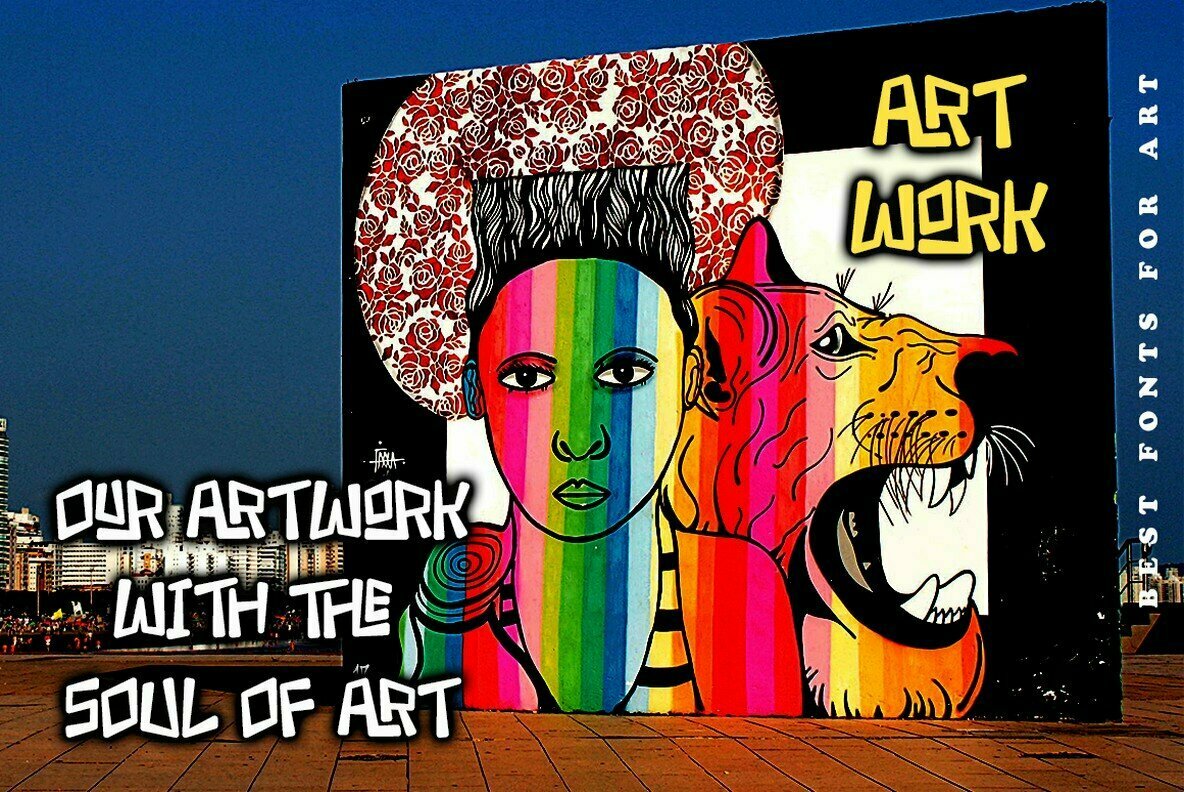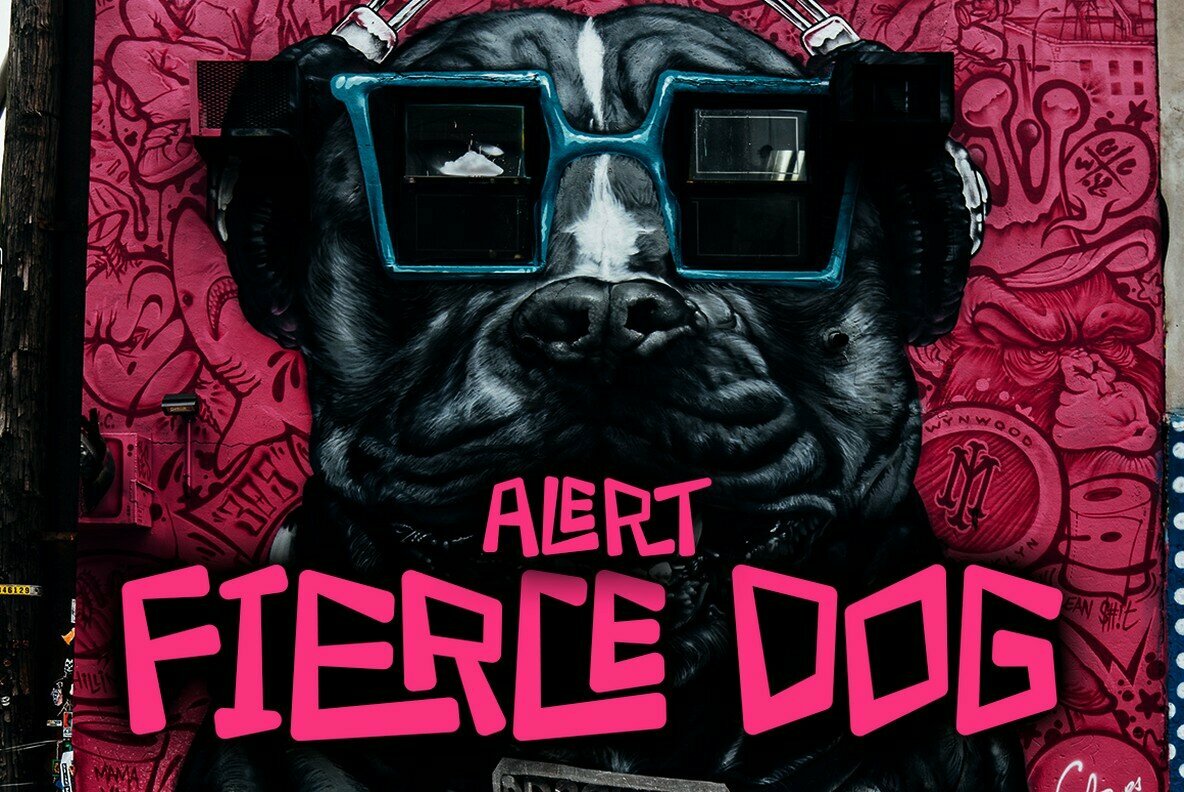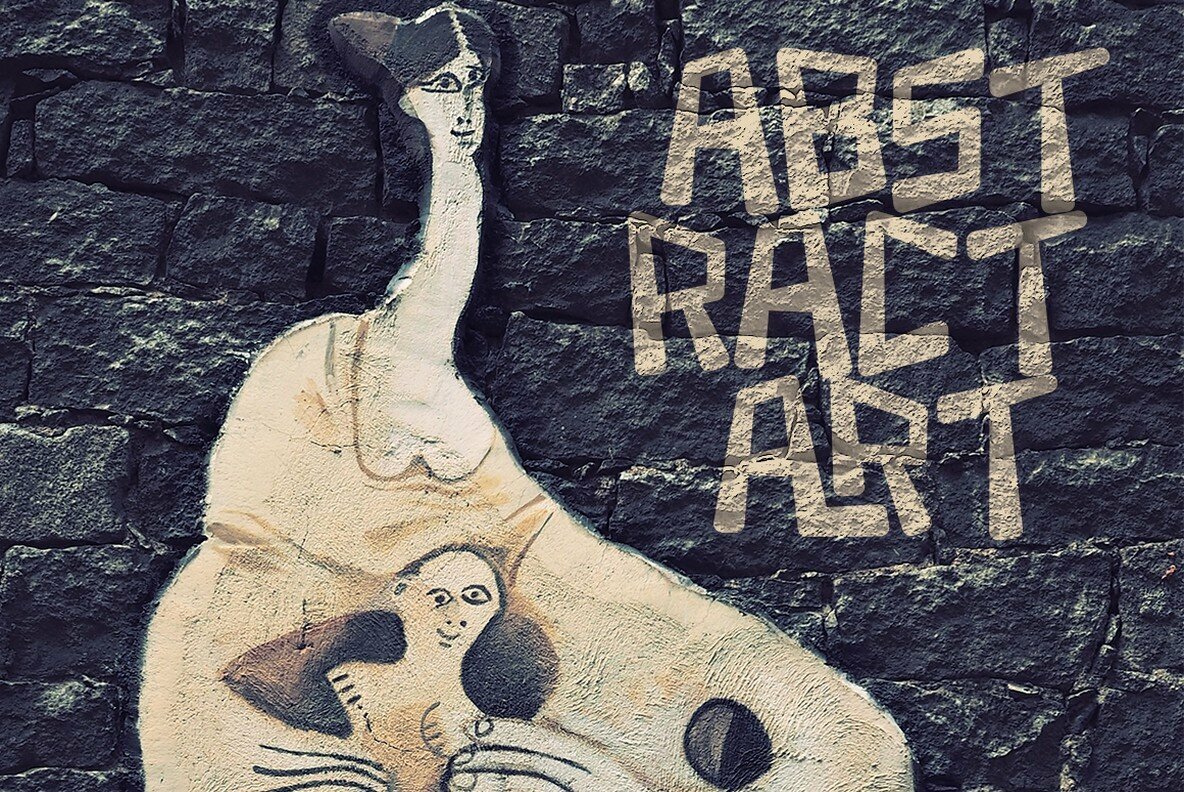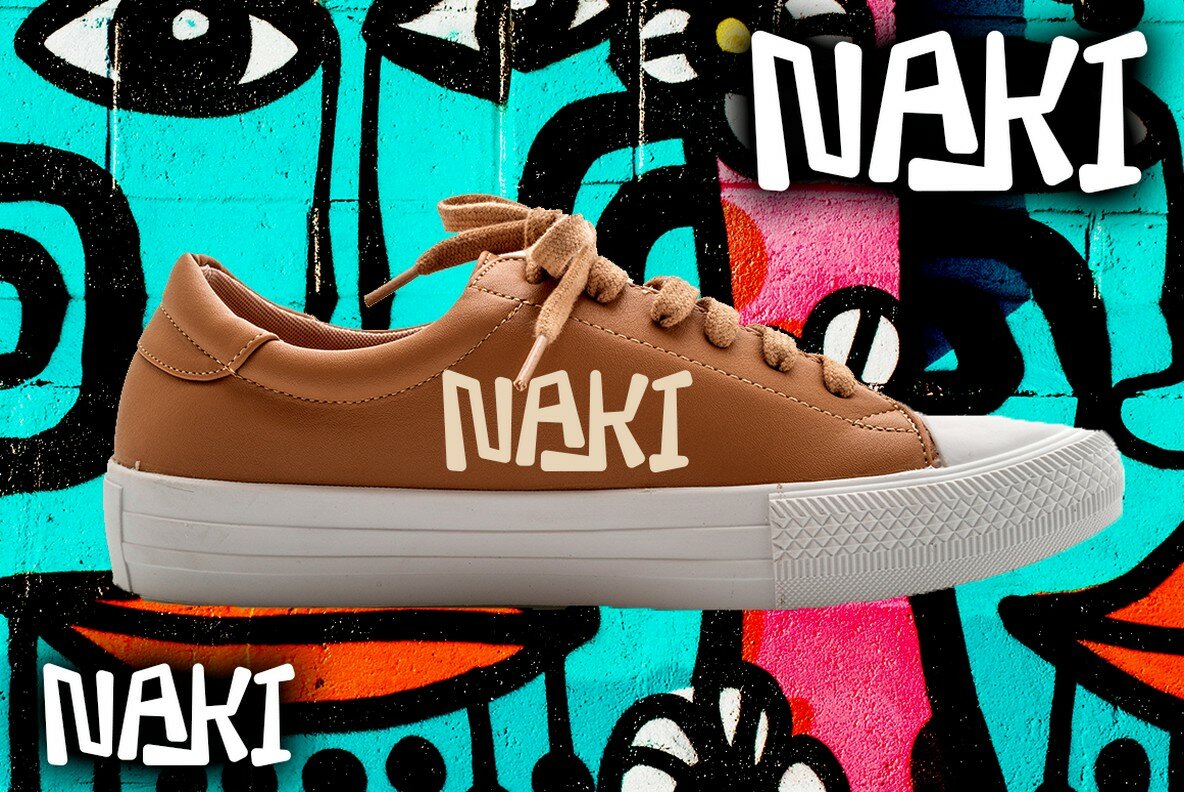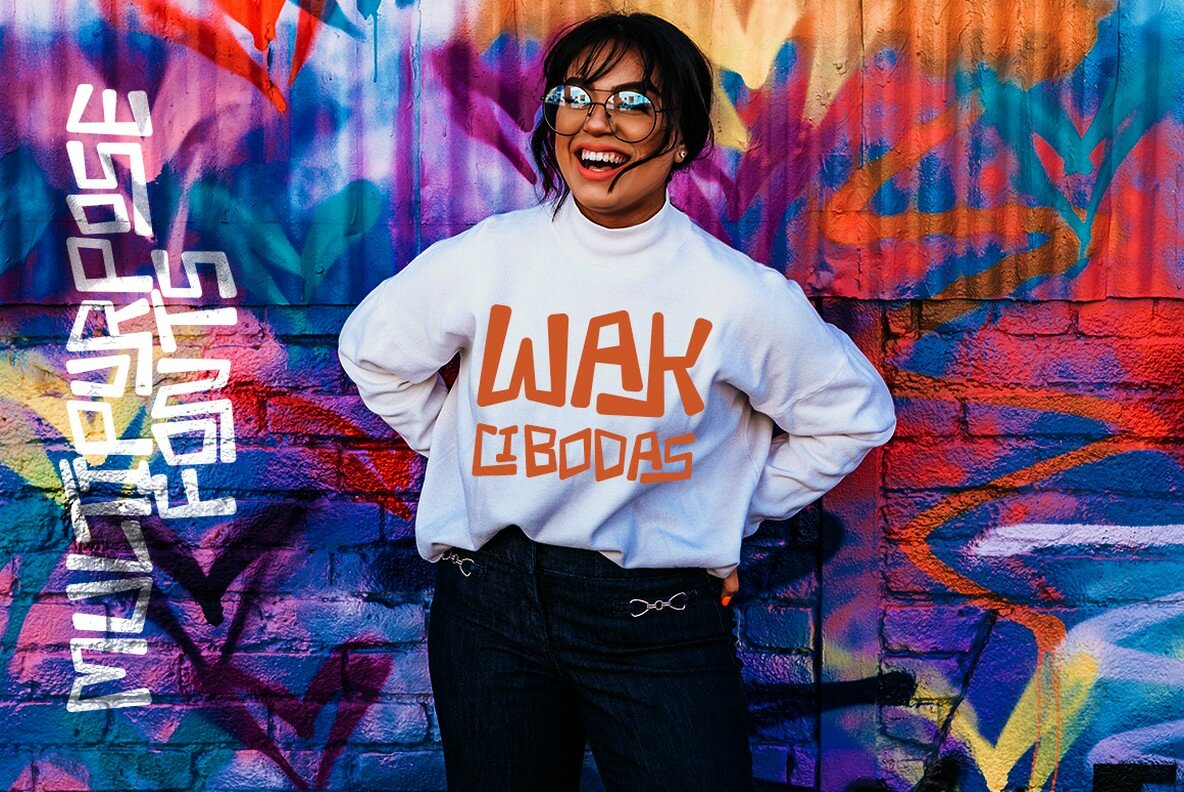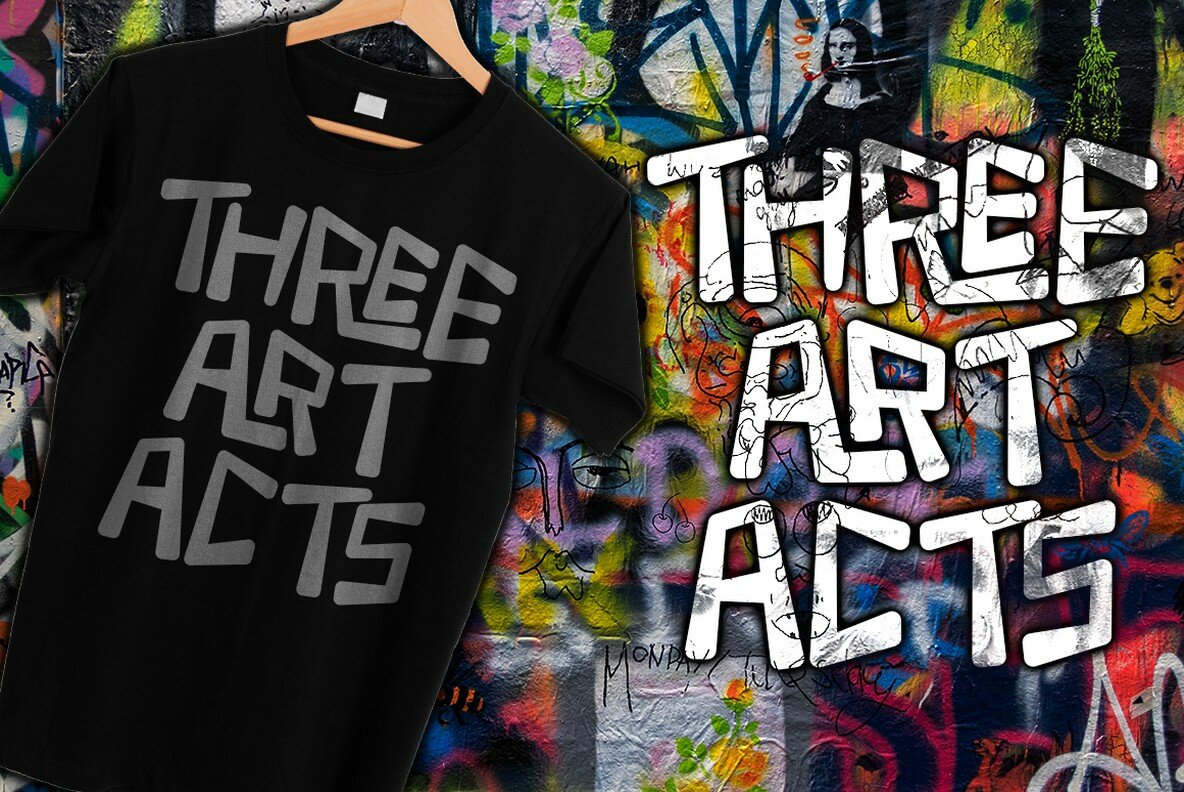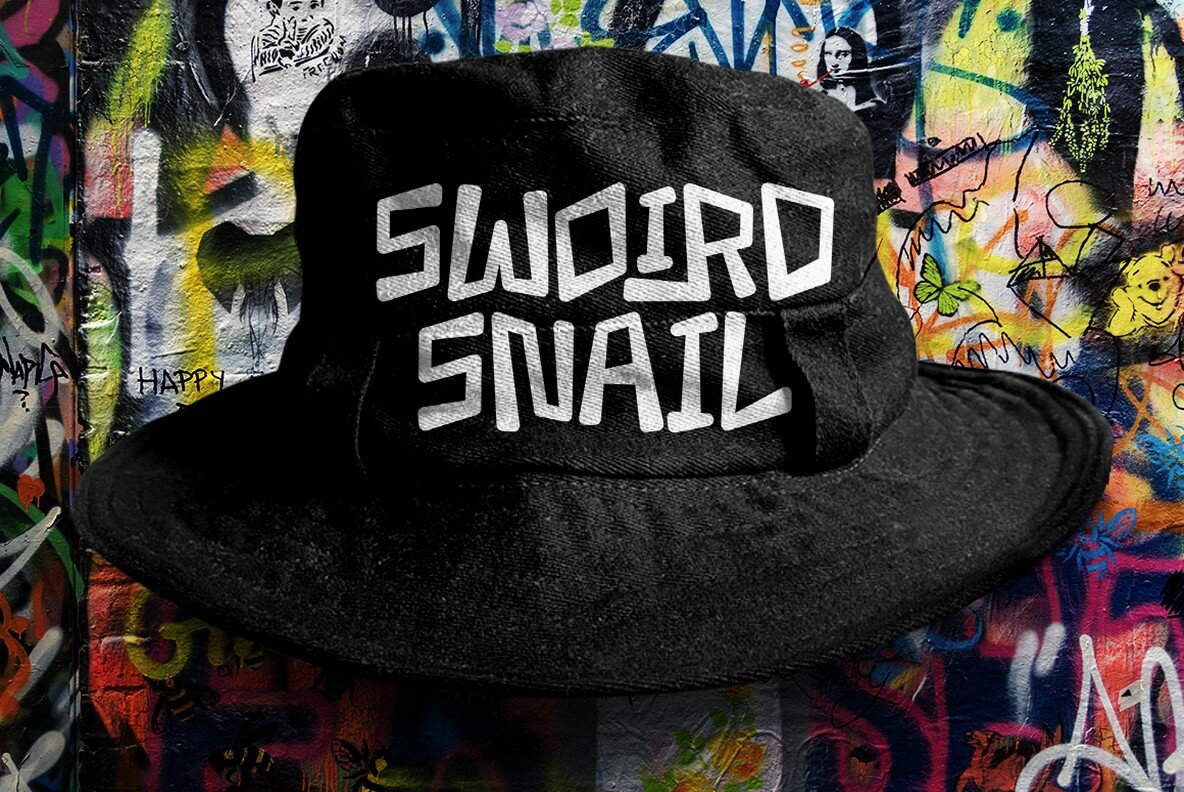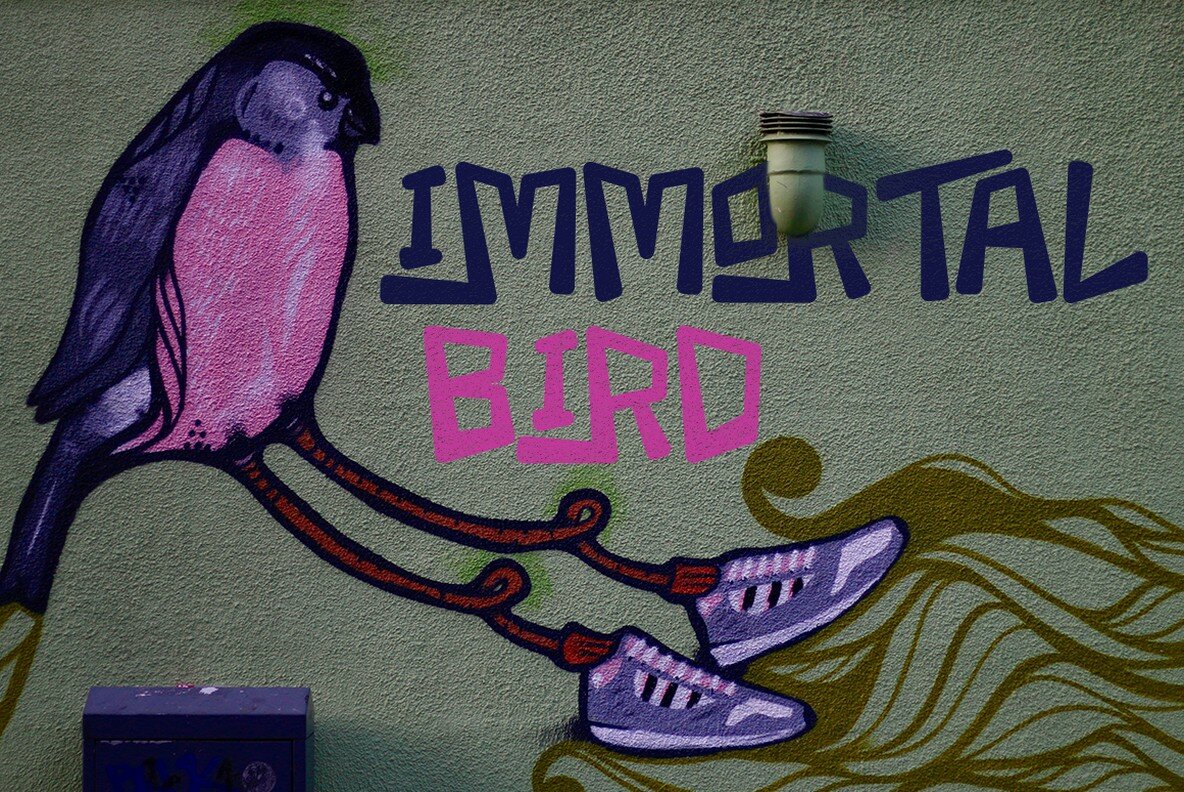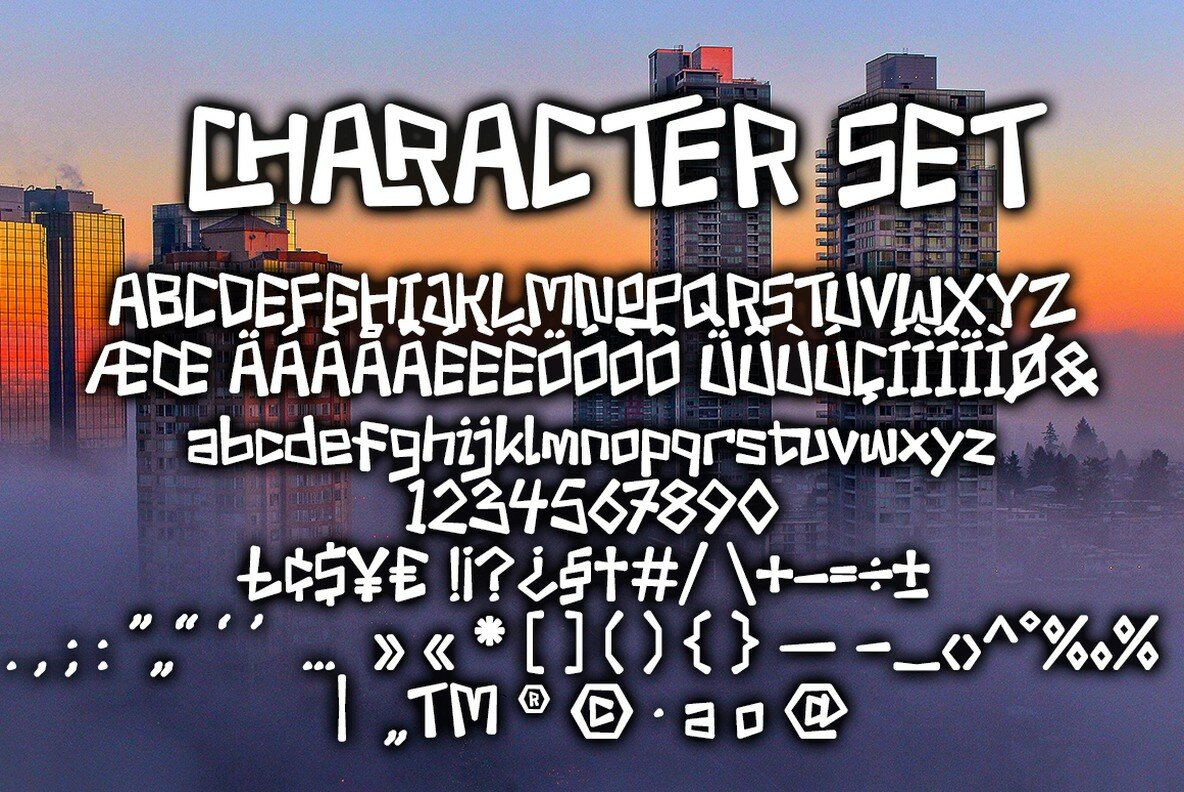
Urban Sketart Font
Urban Sketart
Urban Sketart captures the dynamic essence of city street art, translating it into an engaging graffiti-style font. Designed to add urban flair to your projects, it provides a fresh and vibrant aesthetic. Whether used in branding, packaging, or logo creation, this font offers an authentic streetwise edge that commands attention.Urban Sketart: Bold Graffiti-Inspired Typography
Infuse your work with the spirit of the streets using Urban Sketart, perfect for modern design endeavors.